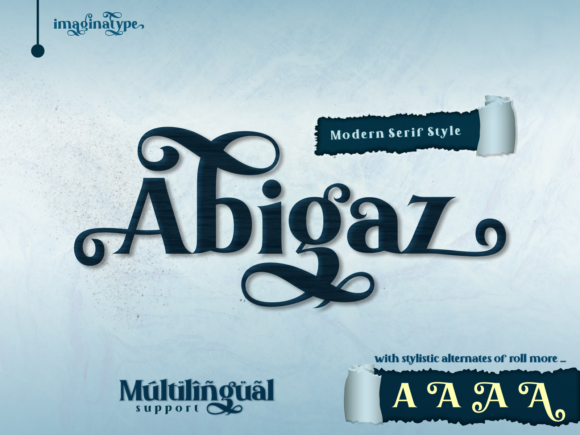
Unlocking Unique Designs with Abigaz Font
You know that moment when you’re staring at a blank canvas, searching for the perfect font to bring your design to life? It’s the spark that ignites creativity, and the right font can make all the difference. For designers seeking to add an extra layer of sophistication to their work, Abigaz Font is the perfect solution. This chic and trendy serif font boasts uniquely shaped letters that exude an air of elegance and refinement.
Abigaz Font is more than just a pretty face – it’s a powerful tool designed to elevate your creations and leave a lasting impression. Whether you’re working on a high-end branding project or crafting a stunning typography piece, Abigaz Font is the perfect companion to help you achieve your artistic vision.
Abigaz Font Key Features
- Font Family: Abigaz is a unique, high-quality font family designed to cater to various design needs.
- Font Sizes: Abigaz font family includes a range of font sizes, from 8pt to 72pt, making it suitable for various design applications.
- Unique Characteristics: Abigaz features a unique blend of modern and traditional design elements, making it an ideal choice for creating visually appealing and professional-looking designs.
Abigaz Font Review
Overall, I think the Abigaz font is a unique and stylish choice for designers looking to add a touch of elegance to their projects. ✨ Its clean lines and subtle flair make it perfect for titles, headings, and other prominent text elements. ✨
One of the standout features of Abigaz is its excellent legibility, making it easy to read even at smaller font sizes. ✨ The font’s x-height is also well-balanced, which helps to create a sense of harmony and visual flow. ✨
While Abigaz is a solid choice for many projects, it does have some limitations that designers should be aware of: ⚠️
- Lack of versatility: Abigaz may not be the best choice for projects that require a lot of variation in font styles or weights.
- Not ideal for body text: While Abigaz is great for titles and headings, it may not be the best choice for large blocks of body text due to its relatively high x-height.
Overall, I think Abigaz is a solid choice for designers who want to add a touch of sophistication to their projects. However, it’s not a one-size-fits-all solution, and designers should carefully consider their project’s requirements before choosing this font.
For a professional look, use Abigaz font for headings and a clean sans-serif font for body text.
For best results, use Abigaz font for titles and use the ‘Paragraph’ panel to adjust text formatting.
For a professional presentation, use Abigaz font for headings and a clean sans-serif font for body text.
Abigaz font is ideal for:
– Creative projects, such as graphic design, digital art, and typography.
– Professional presentations, such as business reports, pitches, and marketing materials.
– Personal branding, such as logos, business cards, and letterheads.
Remember to use Abigaz font in moderation, as it can be bold and eye-catching. Balance it with clean and simple elements for a visually appealing design.